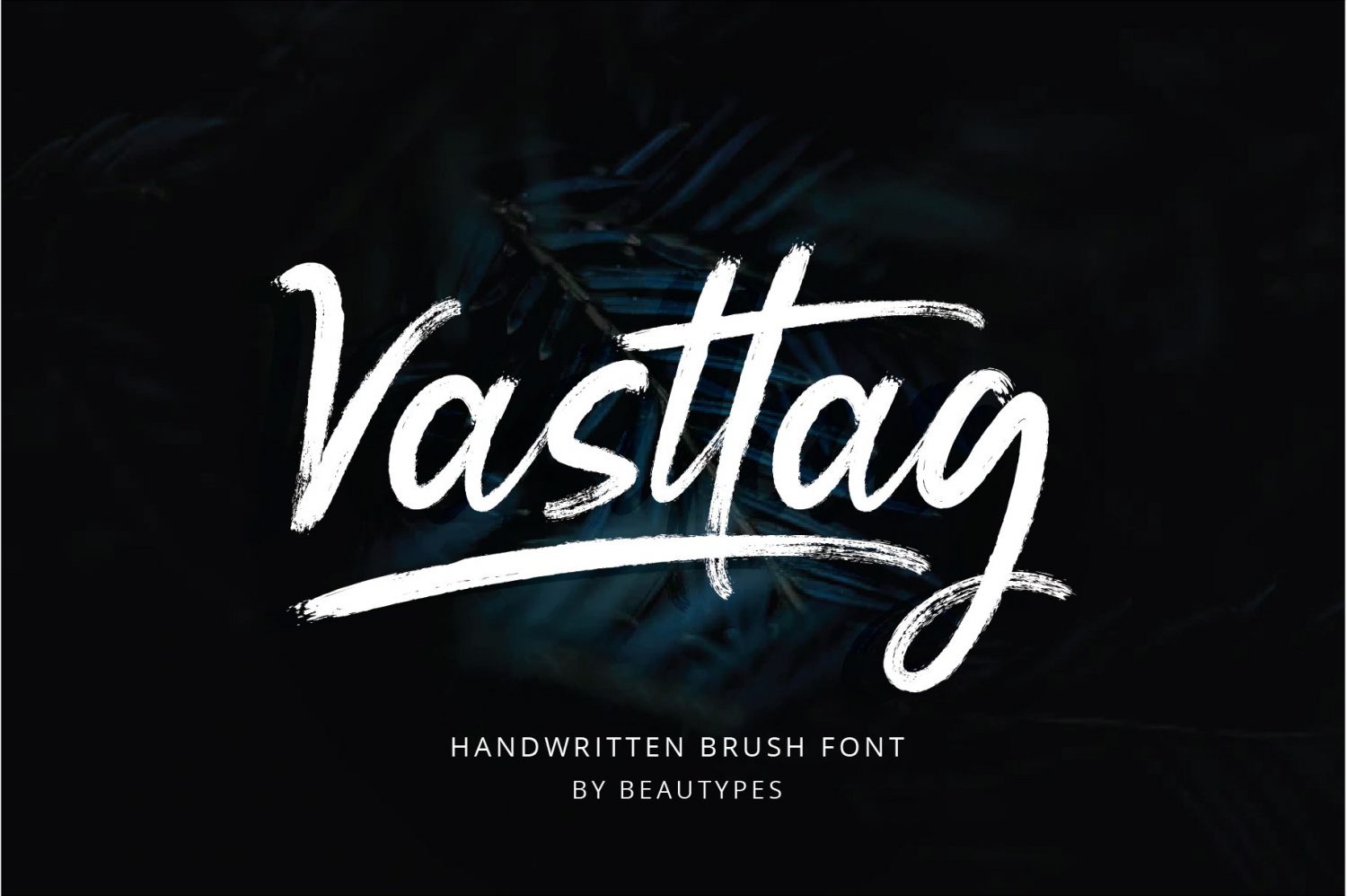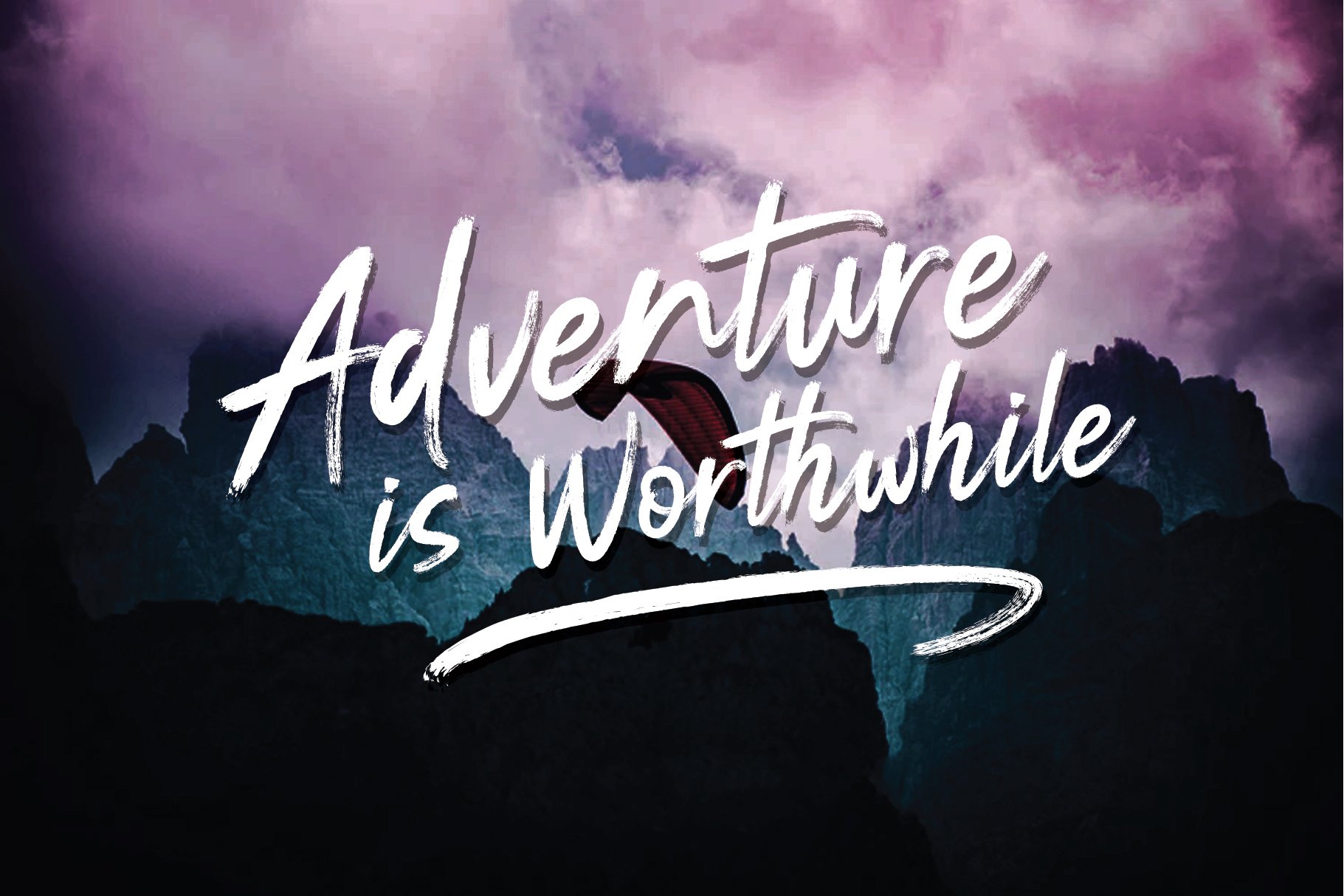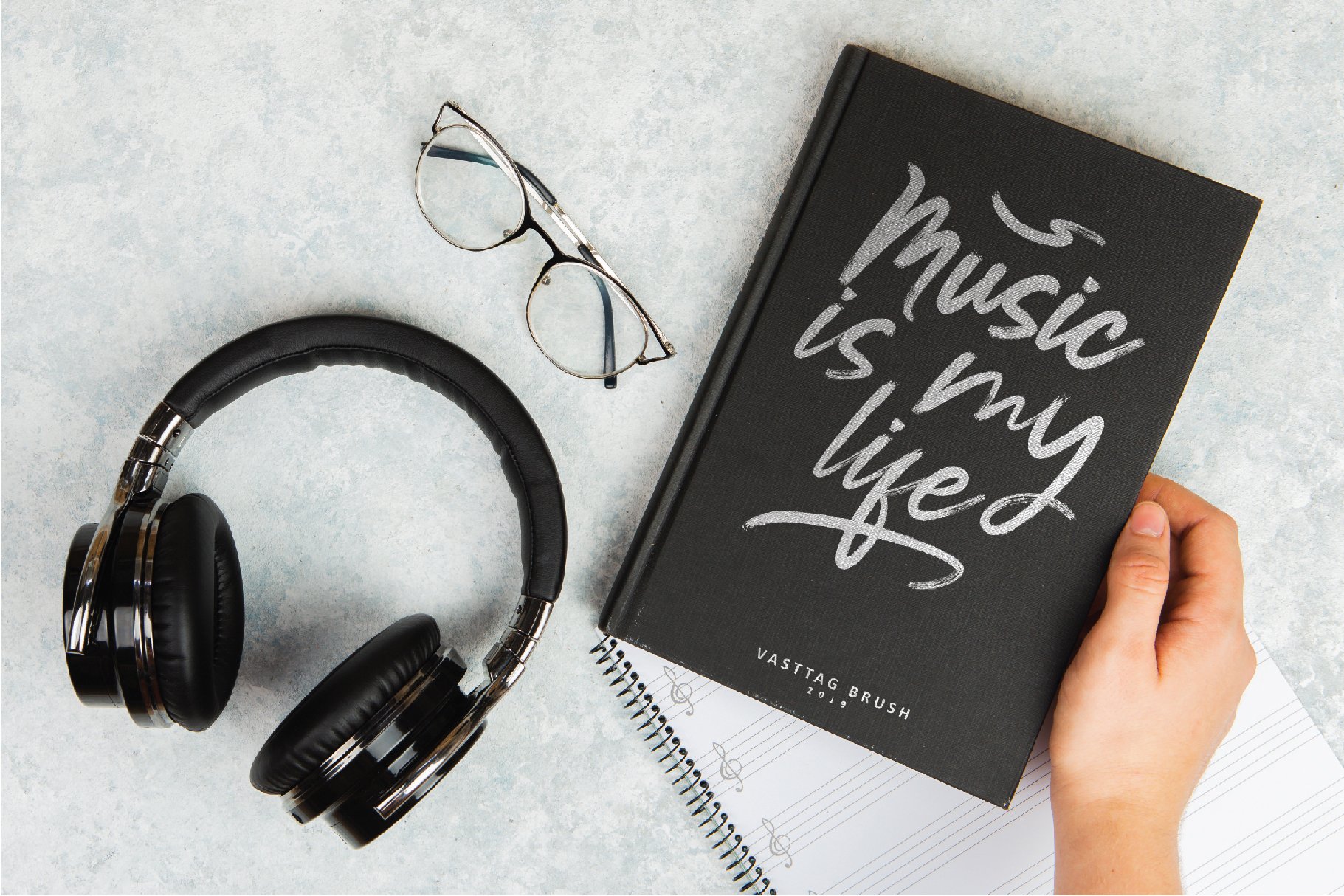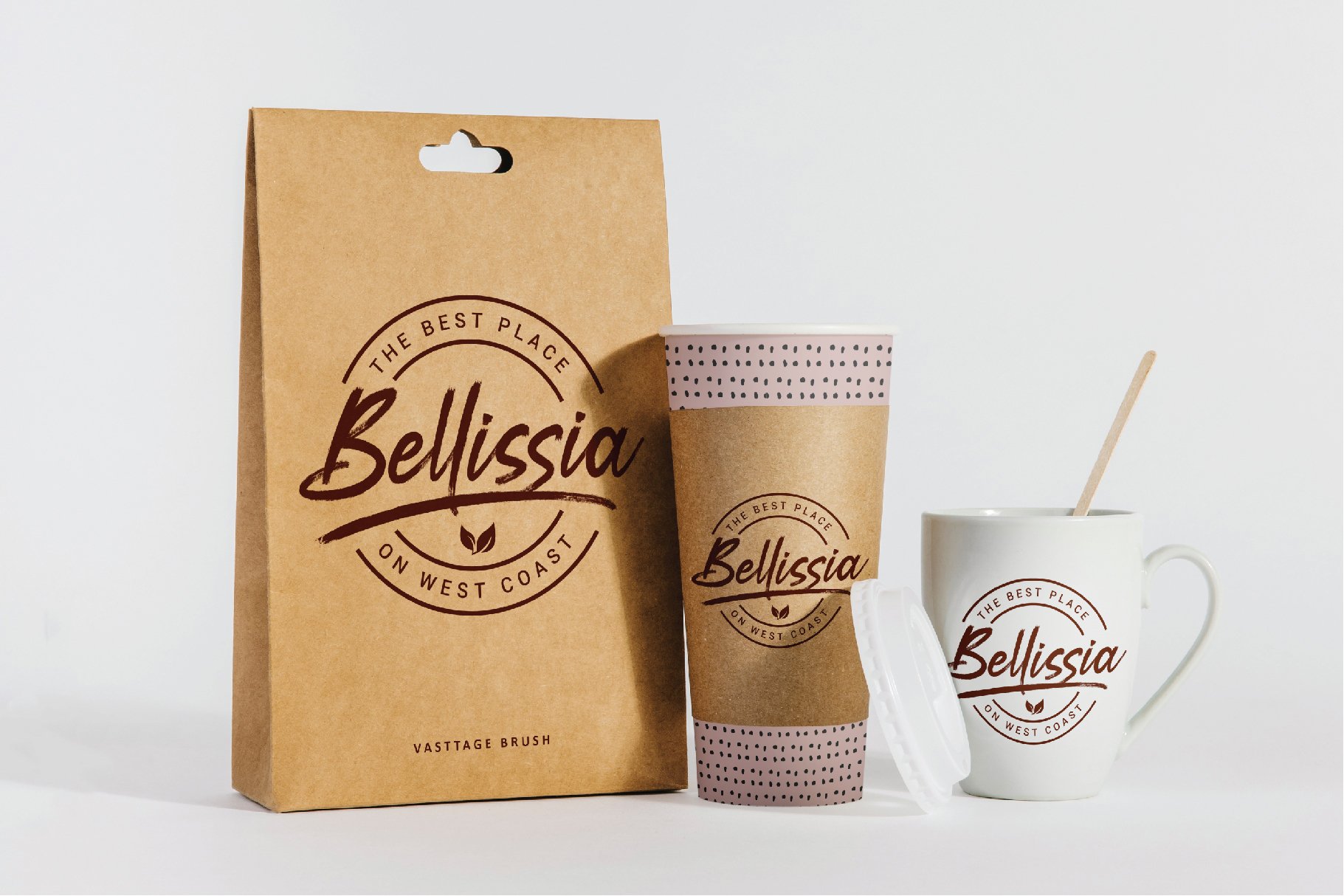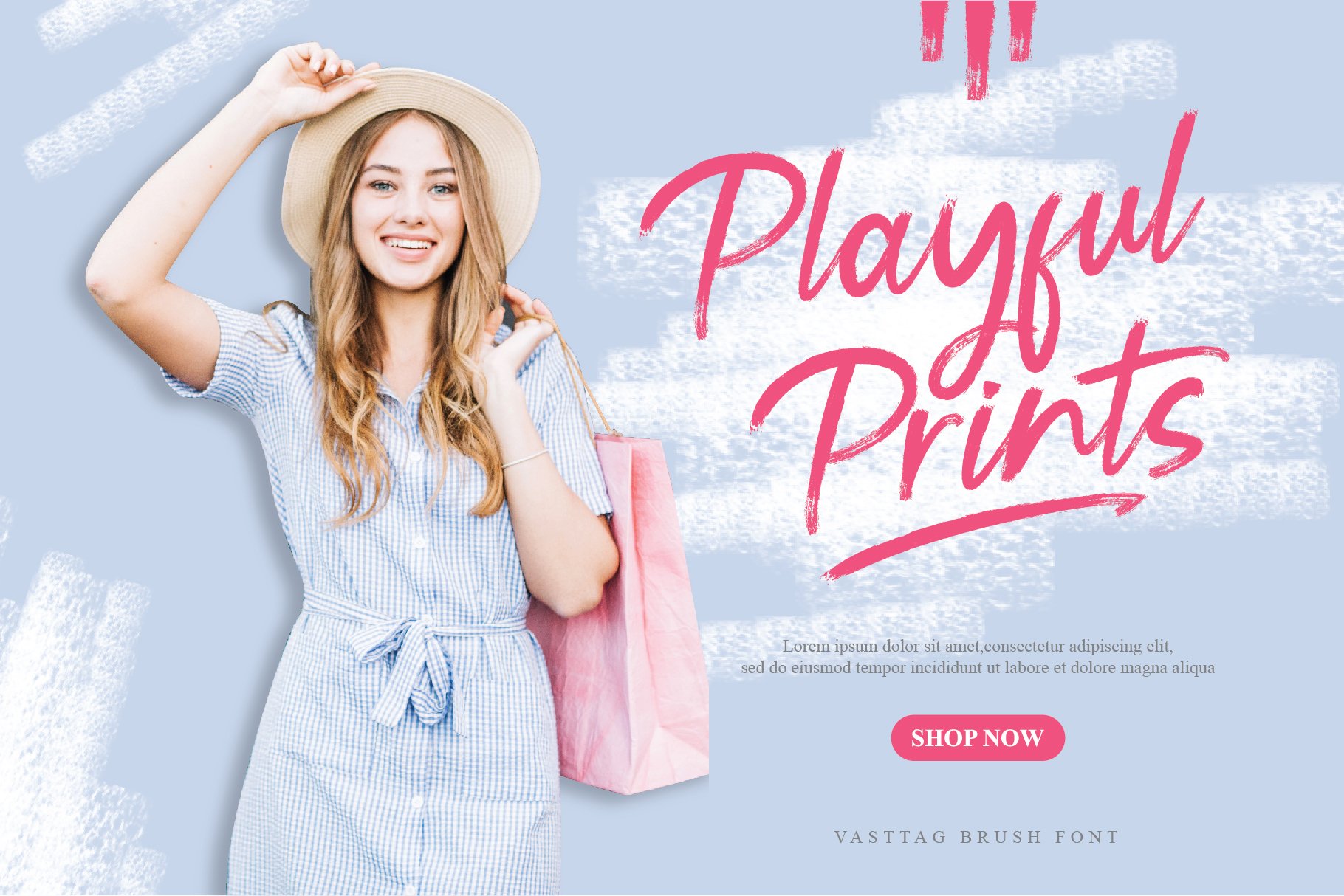
Vasttag Brush Free Font
Vasttag Brush Free Font is an essential font, boasting beauty and versatility suitable for a wide range of design projects. Whether it’s greeting cards, branding, stationery design, social media, packaging, magazines, prints, or any creative endeavorโ€”this font is a perfect choice. This free typeface was designed by a talentedย Harjuno Kristanto. If you like it donโ€™t forget to check out the full version.